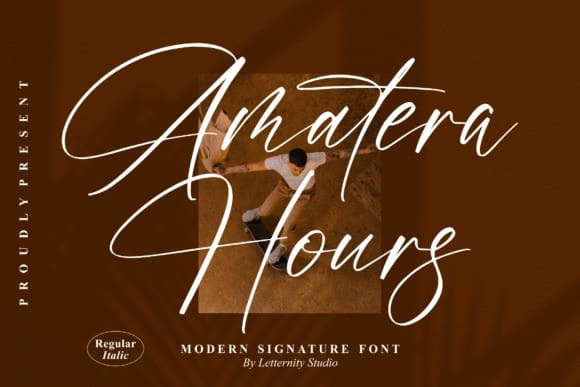
Amatera Hours Font
Amatera Hours Font is a beautiful script font. It is suitable for various projects such as: logos, branding projects, homeware designs, product packaging, mugs, quotes, posters, shopping bags, t-shirts, book covers, and all your other lovely projects that need a beautiful taste.